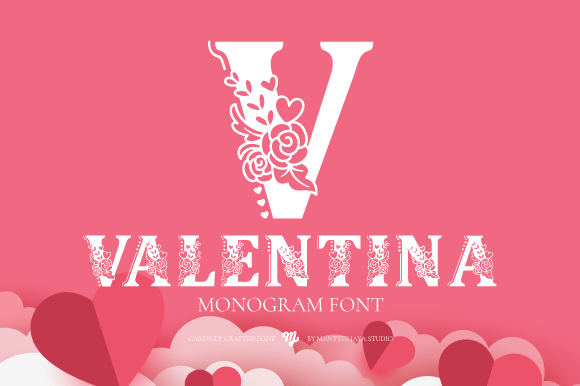
Introducing Valentina Monogram Font, the perfect choice for those seeking the best font for love poems and romantic expressions. Created by Mantype Jaya, this gorgeous decorative font will instantly elevate your designs and captivate hearts.
Valentina Monogram stands out with its exquisite serif letters adorned with elegant floral decorations. Its delicate curves and artistic details make it a true gem in your fonts library. Whether you're a professional designer or a passionate DIY enthusiast, Valentina is here to bring your creative visions to life.
Are you looking to add a touch of romance to your brand? Valentina Monogram is the answer. With its graceful and enchanting aesthetic, this font is an excellent choice for creating unique logos that evoke emotions and leave a lasting impression. Imagine your brand name beautifully crafted in Valentina, exuding elegance and sophistication.
But Valentina Monogram doesn't stop at logos. It's also perfect for various projects that require a touch of beauty and charm. Let your imagination run wild as you design pretty packaging that stands out on the shelves, or create breathtaking card designs that make your loved ones feel truly special.
Valentina Monogram is more than just a font – it's a tool to express your deepest emotions. Its romantic essence will effortlessly enhance your love poems, making every word resonate with passion and tenderness. Whether you're a poet, a writer, or someone who simply enjoys expressing their feelings through words, Valentina is the ultimate companion for heartfelt creations.